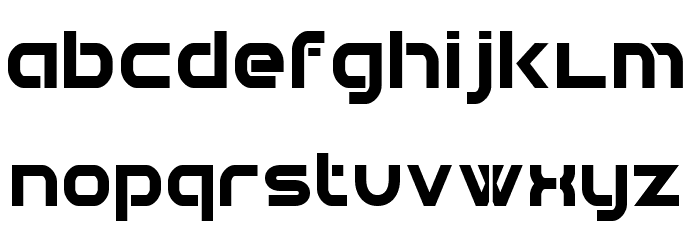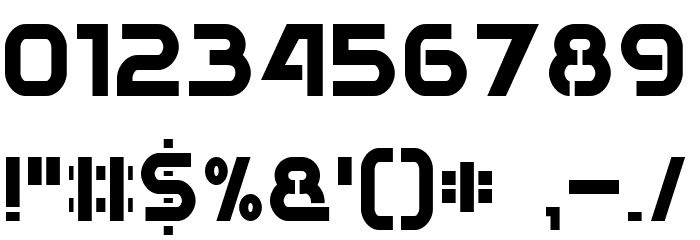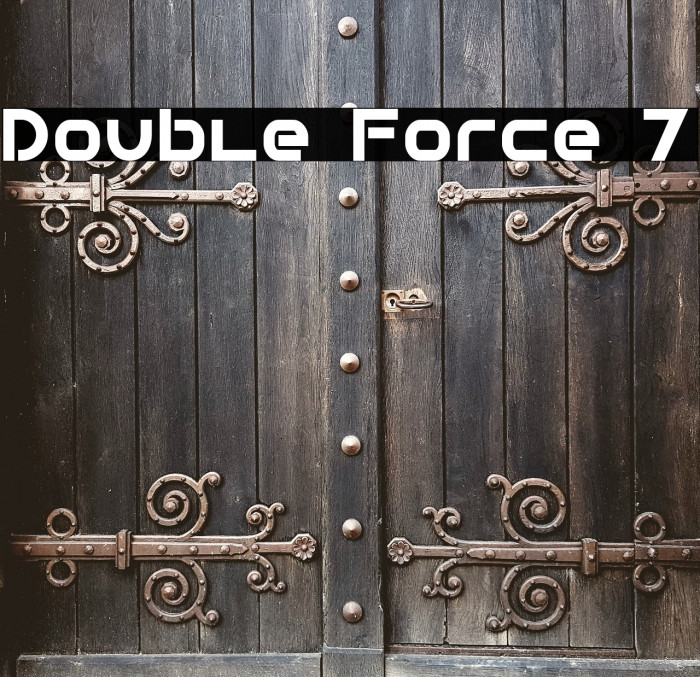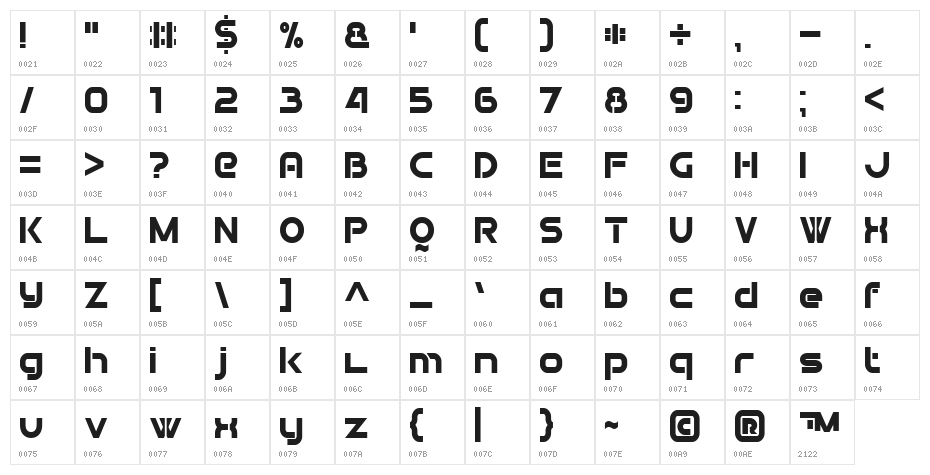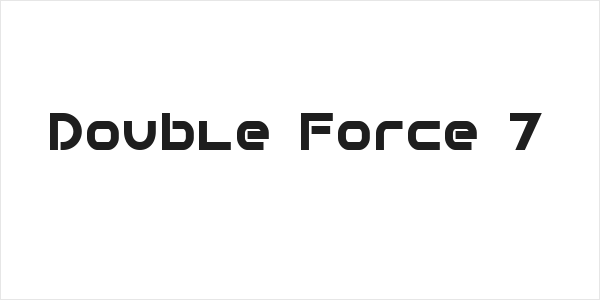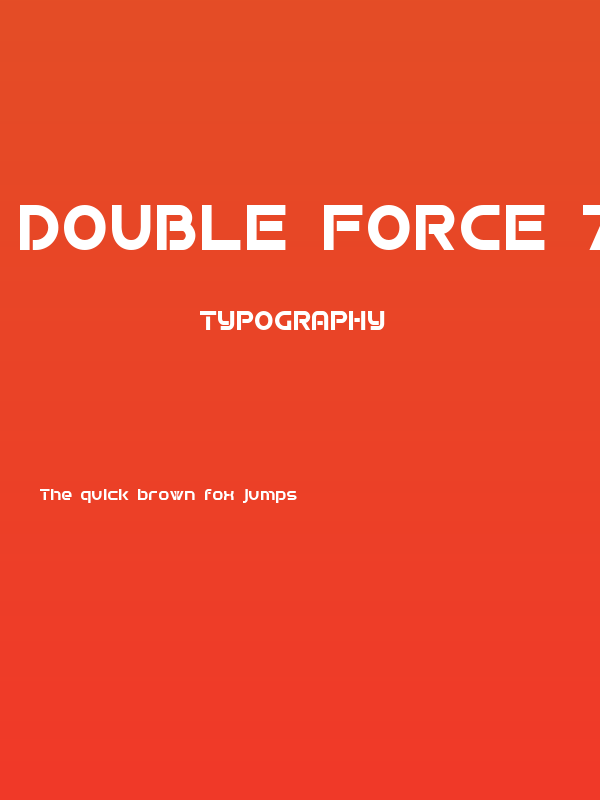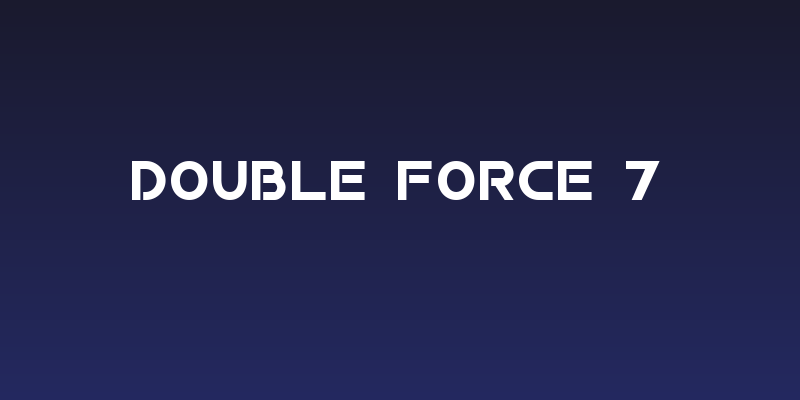
Double Force 7 Font
This font features a bold, geometric style with a futuristic and industrial feel. The characters are constructed with strong, angular lines and a consistent stroke width, giving it a robust and modern appearance. The uppercase and lowercase letters maintain a uniform height, enhancing its structured look. The numerals and special characters follow the same design principles, ensuring a cohesive visual identity across all glyphs. Its distinct, blocky form makes it highly legible and impactful, suitable for various design applications.
- Proposed Projects: Ideal for technology branding, sci-fi themed designs, video game interfaces, and modern advertising.